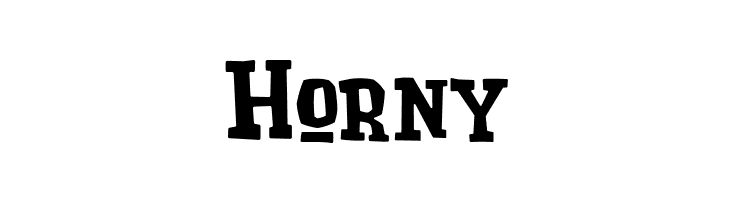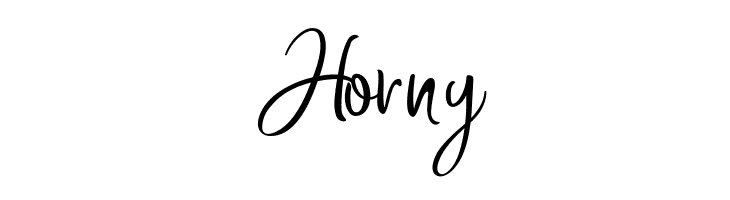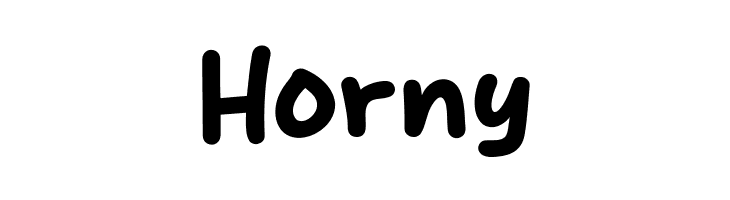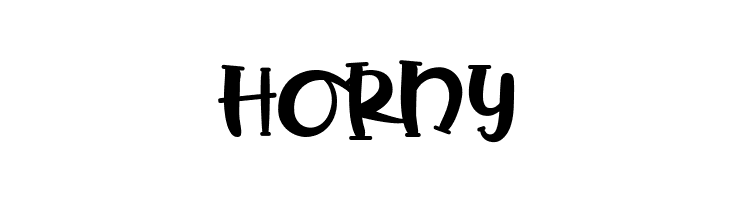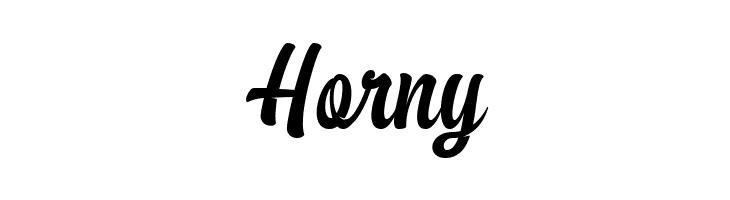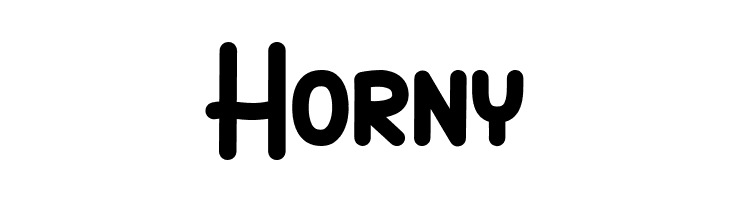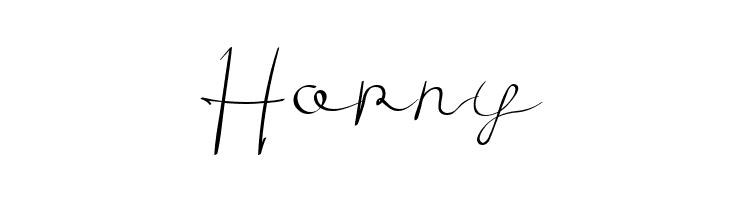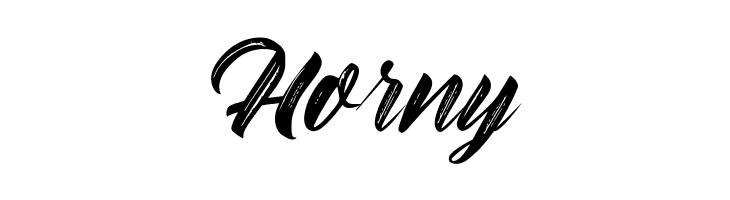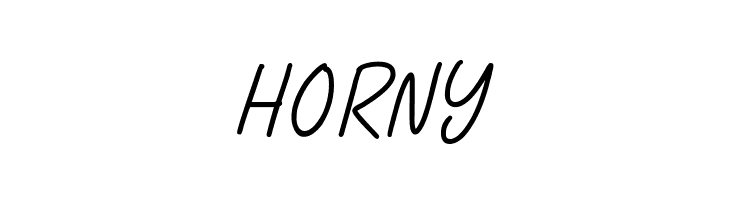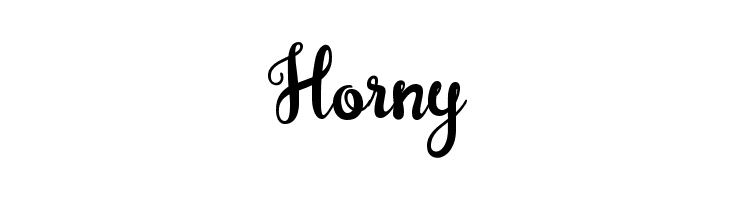
An elegant script font with flowing, ornate letterforms and intricate loops.
A bold, energetic script font with fluid, sweeping strokes and a handcrafted feel.
A cursive script font with elegant, flowing characters and intricate details.
A bold, flowing script font with elegant curves and smooth connections.
A dynamic and elegant script font with a modern twist.
An elegant script font with fluid lines and graceful curves.
A bold, flame-inspired font with jagged, dynamic characters.
A playful, casual handwritten font with irregular strokes.
An elegant, flowing script font with modern, artistic curves.
An elegant and flowing script font with intricate loops and swirls.
An elegant, decorative script font with outlined, swirling characters.
A decorative script font with elegant swirls and playful curls.
A decorative script font with playful swirls and loops.
A dynamic and flowing script font with elegant cursive letterforms.
A playful, handwritten font with bold, rounded letters and charming details.
A playful, handwritten font with smooth curves and a casual style.
A playful, rounded font with thick, uniform strokes and a friendly appearance.
A bold, playful handwritten font with rounded strokes and a friendly appearance.
Casual handwritten script font.
A bold, playful font with rounded, whimsical characters.
Bold, decorative font with a playful, retro style.
Playful, rounded handwritten font.
A playful, rounded, and bold font with a friendly and informal style.
A playful, rounded font with a hand-drawn, casual style.
A playful, casual handwritten font with rounded, consistent strokes.
A bold, modern font with a slightly condensed width and clean lines.
A bold, playful font with decorative patterns and textures.
A playful, bold, and rounded font with a friendly and approachable style.
An elegant and flowing script font with interconnected letterforms.
A playful, bold, and whimsical font with curvy, hand-drawn style letterforms.